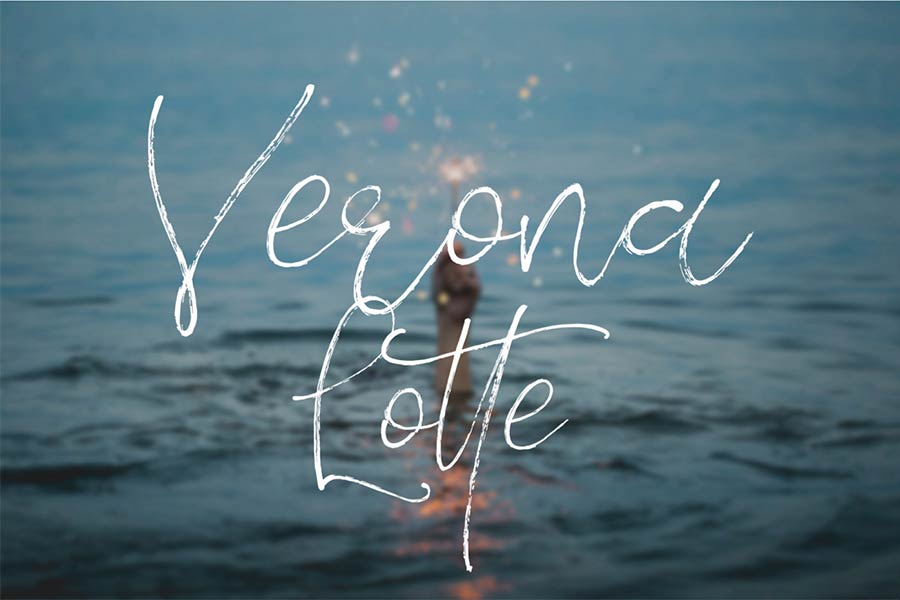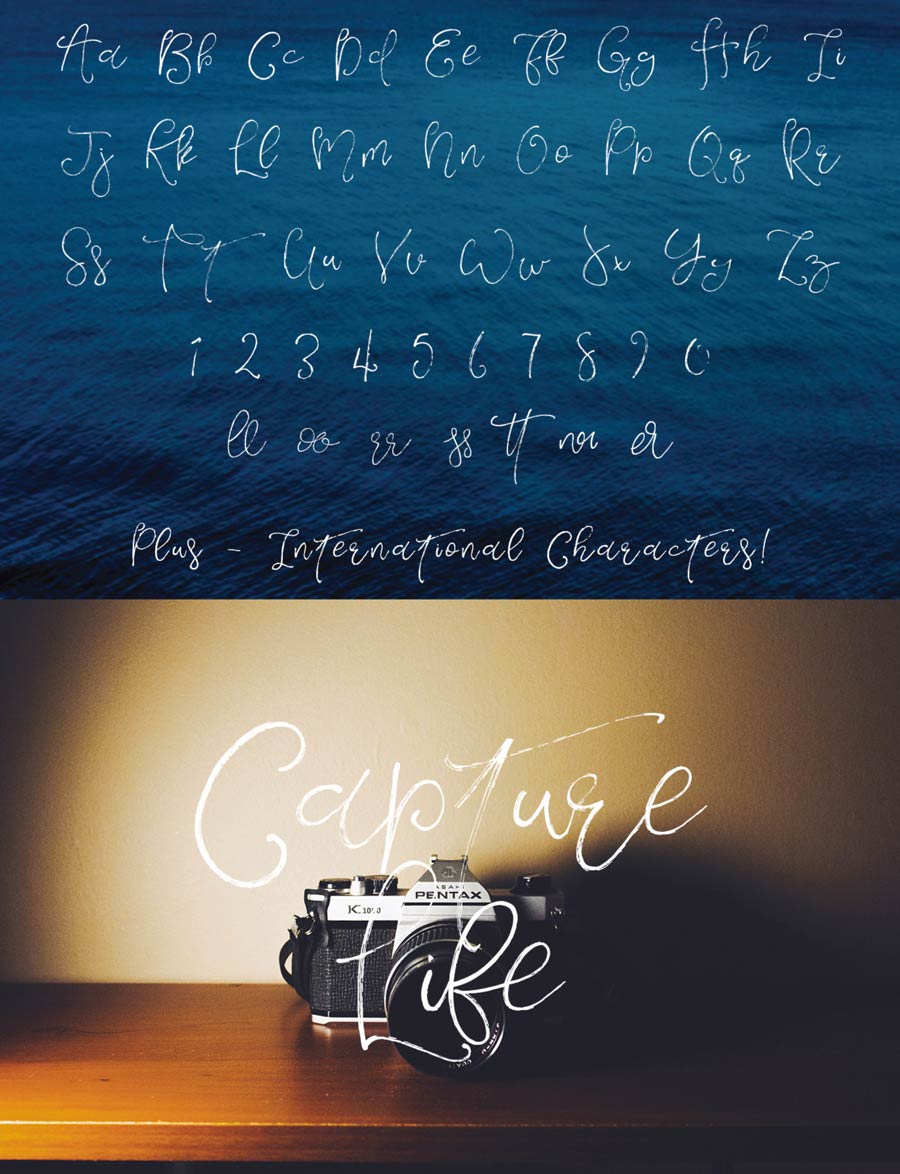
Verona Lotte is a scribbly hand brushed font that is free to download. It has beautifully crafted flowing brush strokes, ligatures and supports multiple languages. This font is perfect for prints like t-shirts, menus, invitation cards and more.